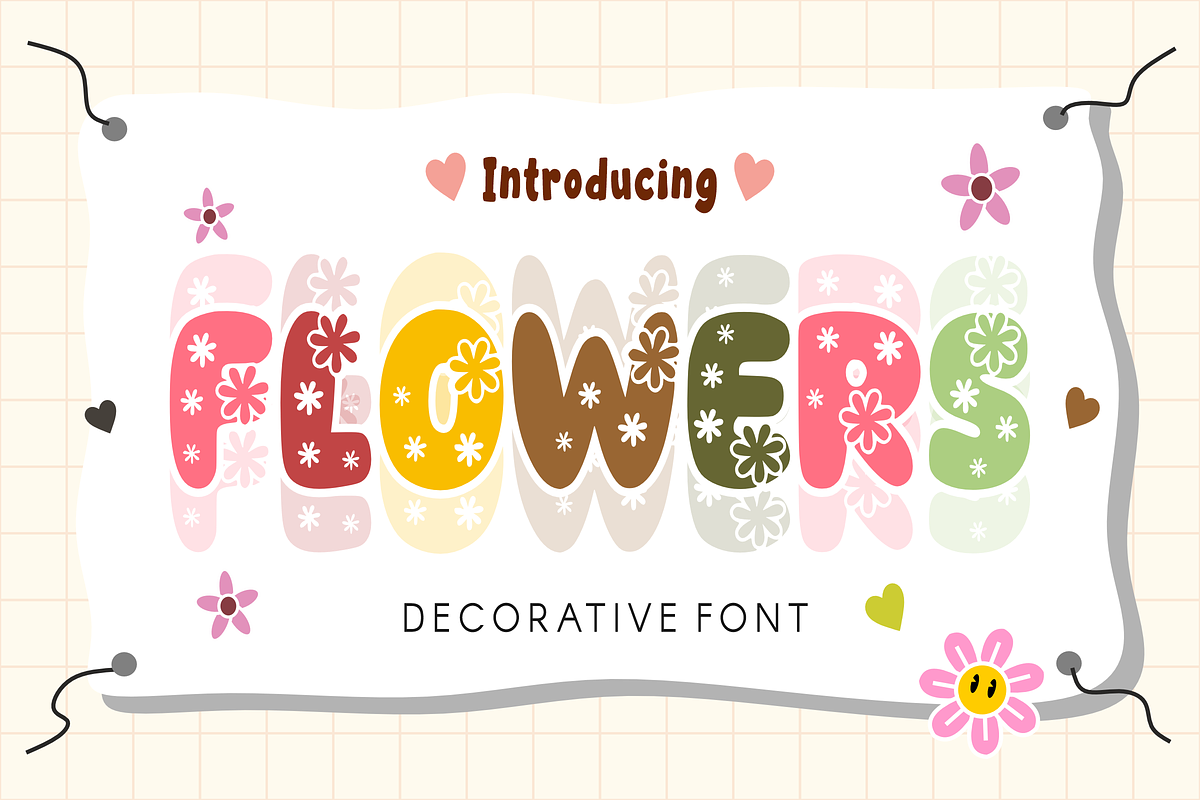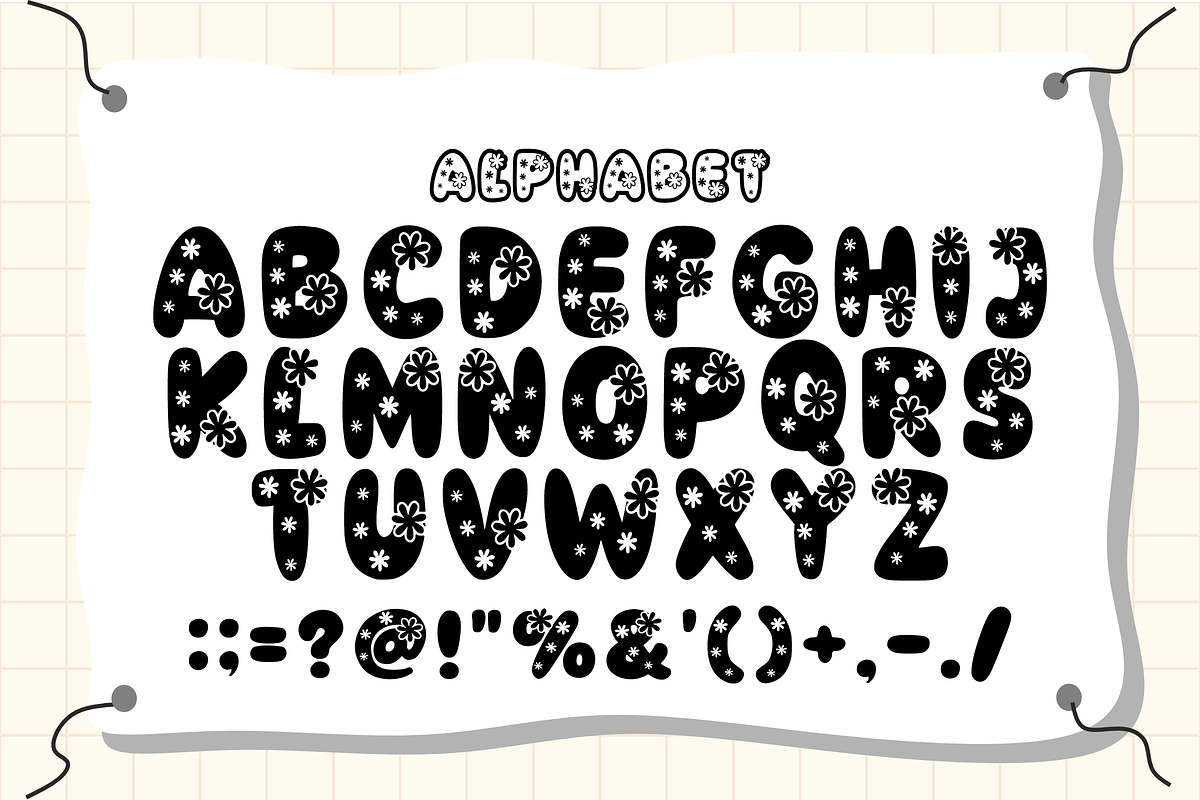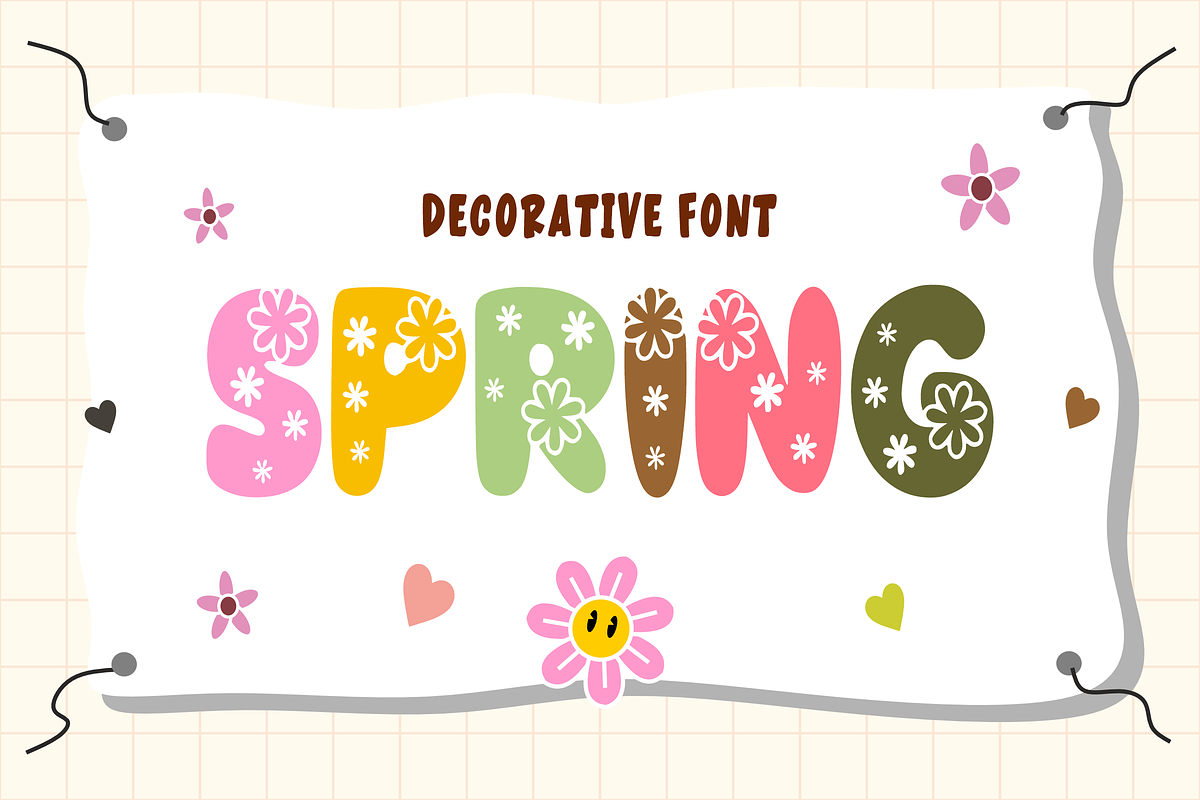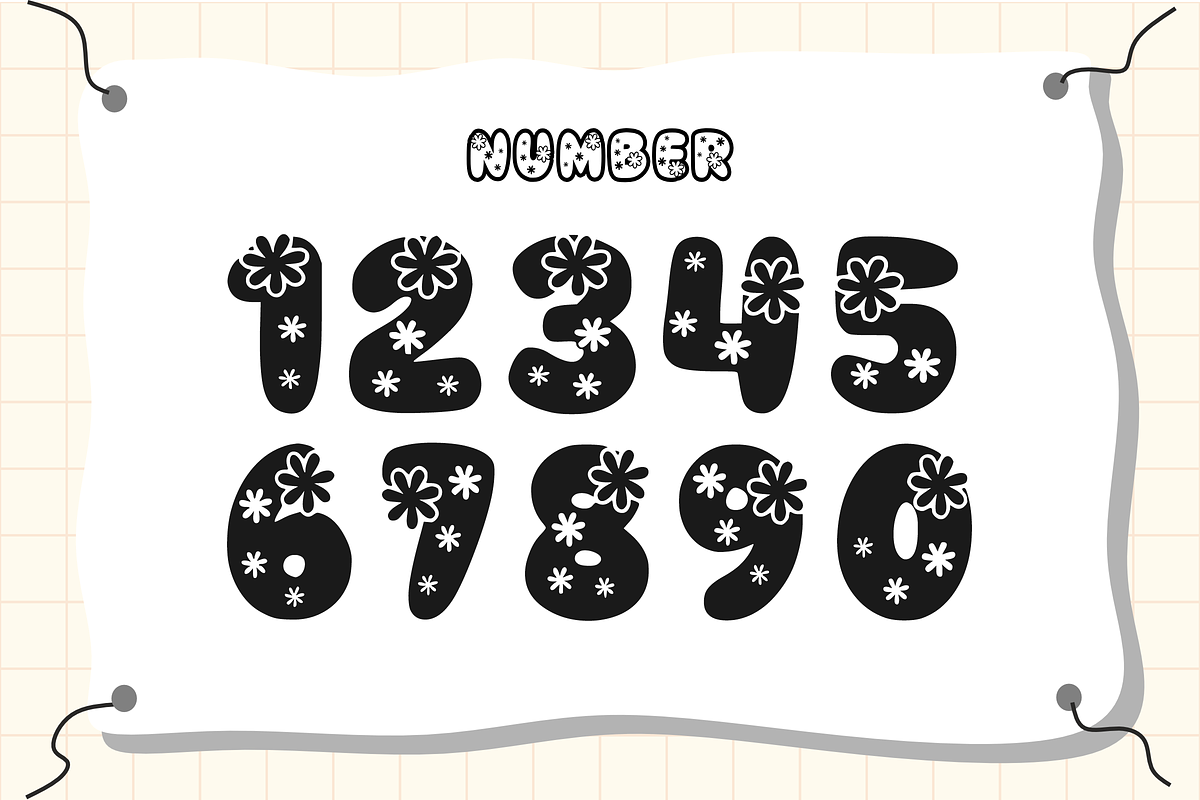
Flowers - Spring Font Type
Unveiling “Flowers”, a spring-inspired font that exudes beauty in every stroke. Its characters are endearingly constructed and are bursting with floral artistry. With its enchanting style, it becomes an ideal choice for crafting invitations, conceptualizing business cards, designing t-shirt prints, or enhancing various decorative endeavors. Flowers cements your creations with its petal-filled charm.